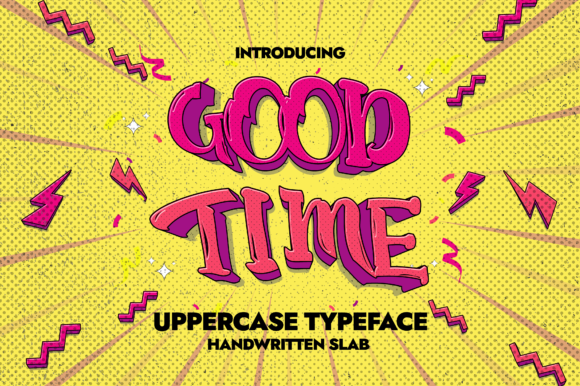
Step into the Groove with the Good Times Font
Have you ever found yourself digging through a dusty old record store, searching for that perfect vinyl to bring back memories of a bygone era? That’s exactly the kind of creative moment that inspired the designers behind the Good Times Font.
This cool, retro, and quirky slab serif font is more than just a nostalgic nod to the past – it’s a versatile tool for any designer looking to add a touch of elegance and sophistication to their work. Whether you’re crafting a business report, designing a magazine, or creating a poster, the Good Times Font is the perfect companion to help you convey your message in style.
- Unique Characteristics: Features a distinctive, energetic feel with a mix of rounded and geometric shapes, making it perfect for modern and playful designs
- Kerning and Ligatures: Includes advanced kerning and ligature tables for precise control over letter spacing and connections, ensuring a polished and professional look
Good Times Font Review
Overall, I’d say the Good Times Font is a fun, playful typeface that’s sure to add some personality to your designs ✨. The font’s unique, swashy style and exaggerated features make it perfect for creating eye-catching headlines and titles.
One of the things I love about Good Times is its versatility. It’s suitable for a wide range of projects, from posters and flyers to social media graphics and merchandise. The font also comes in a variety of weights, which makes it easy to create visually appealing contrast in your designs ✨.
However, there are a few limitations to consider ⚠️:
- The font may be too playful for more formal or professional projects.
- The swashy style can be distracting if overused, so it’s essential to use it in moderation.
- The font may not be suitable for body text, as it can be difficult to read in large blocks of text.
Overall, I’d recommend the Good Times Font for designers who want to add a touch of whimsy and fun to their projects. Just be mindful of its limitations, and use it in a way that feels authentic to your brand and style.
Getting the Most Out of Good Times Font
For best results, use Good Times Font in bold or italic styles to add emphasis and create visual interest.
Combine Good Times Font with other fun, playful fonts to create a unique and eye-catching design.
Good Times Font is perfect for:
1. Social media graphics and posts
2. Party invitations and decorations
3. Fashion and beauty branding
4. Food and drink menus
Alternatives to Good Times Font
Comic Sans MS is a casual, cursive script font designed by Vincent Connare in 1994. It’s ideal for informal documents, children’s books, and social media graphics. Comic Sans MS is more playful and childlike compared to Good Times Font, which is more elegant and sophisticated. While it’s often criticized for being overused, it can still be a great choice for certain projects.
Pacifico is a beautiful, elegant script font designed by Vernon Adams in 2011. It’s perfect for wedding invitations, luxury brands, and high-end marketing materials. Pacifico is more refined and sophisticated than Good Times Font, with a more luxurious feel. However, it’s not as versatile and can be too formal for casual projects.